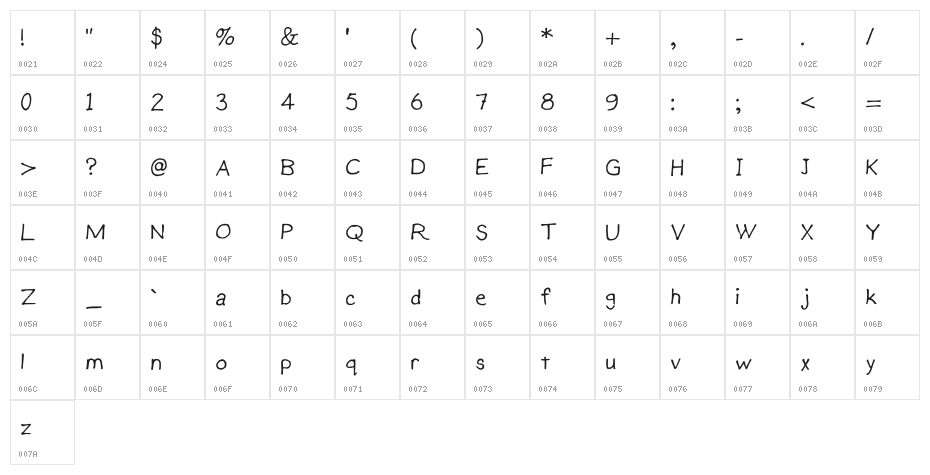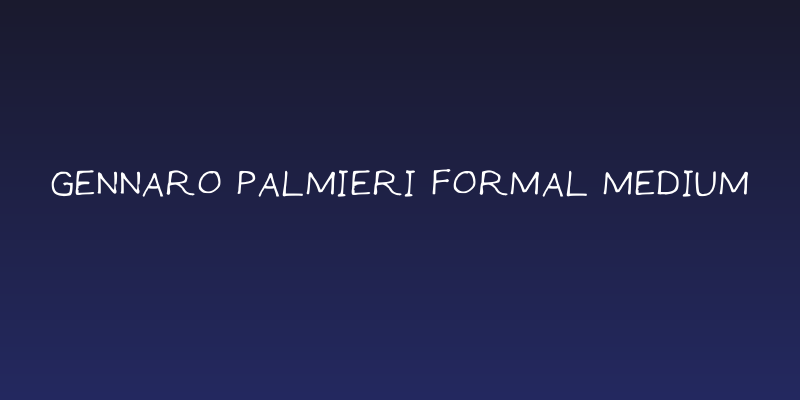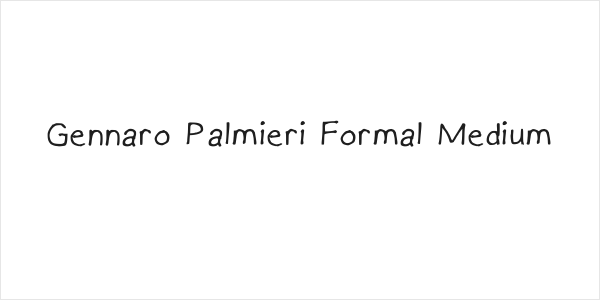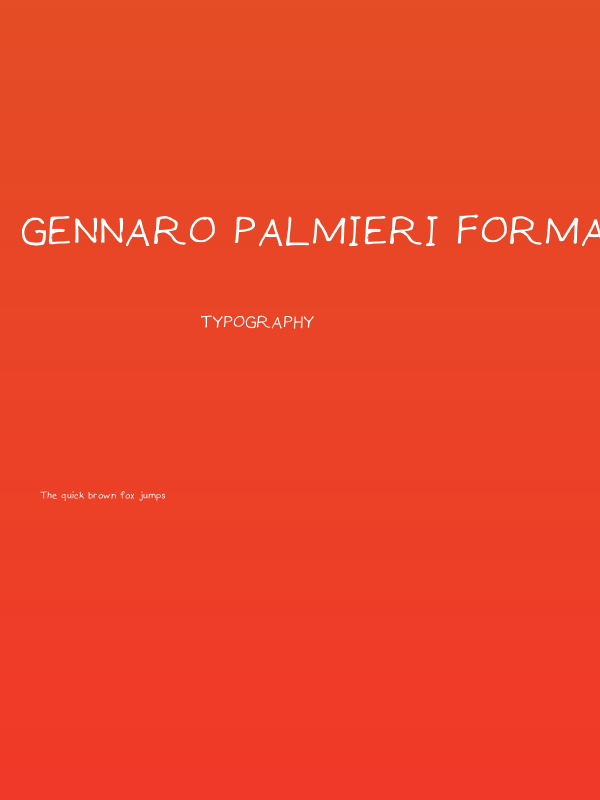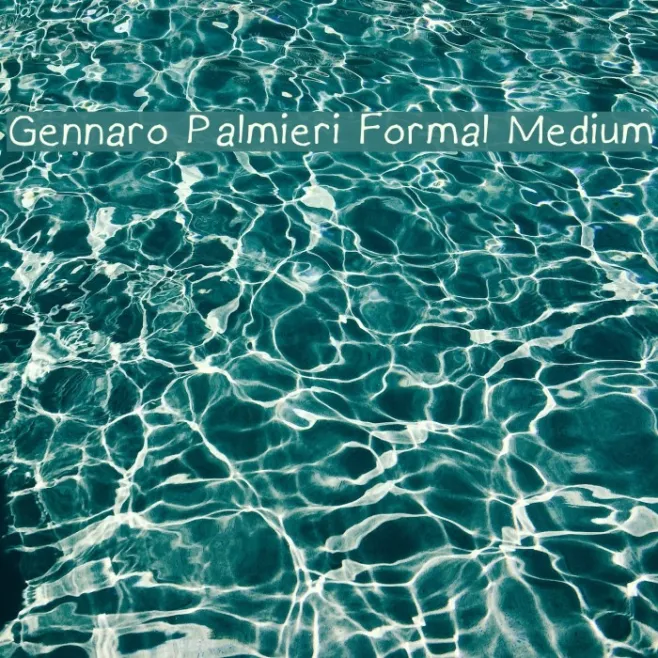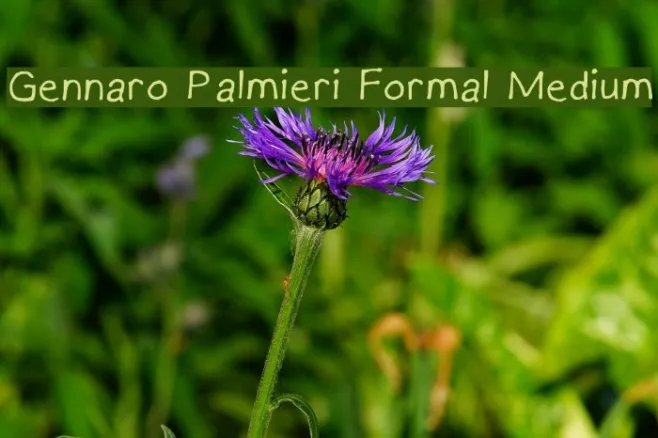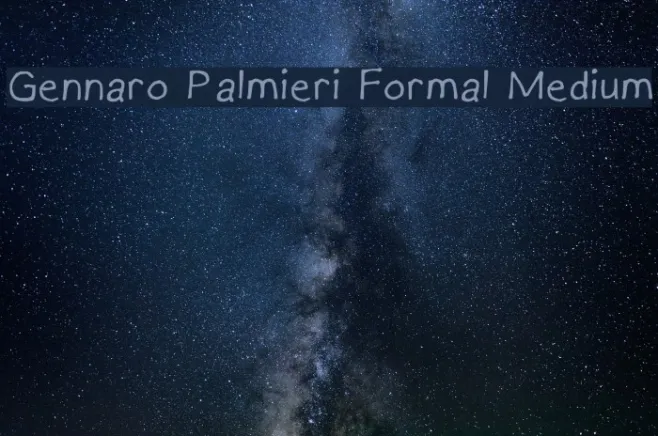
Gennaro Palmieri Formal Medium Font
Gennaro Palmieri Formal Medium Description
This font features a playful and informal handwritten style, characterized by its irregular strokes and slightly uneven baseline. The uppercase letters are bold and distinct, while the lowercase letters maintain a casual and approachable appearance. The numerals are clear and legible, complementing the overall style. Special characters are included, adding versatility for various uses. The font's organic feel makes it suitable for projects that require a personal touch or a creative flair.
| Use Case | Logos, Invitations, Creative projects |
| Proposed Projects | Ideal for greeting cards, children's books, casual invitations, and creative branding projects. |